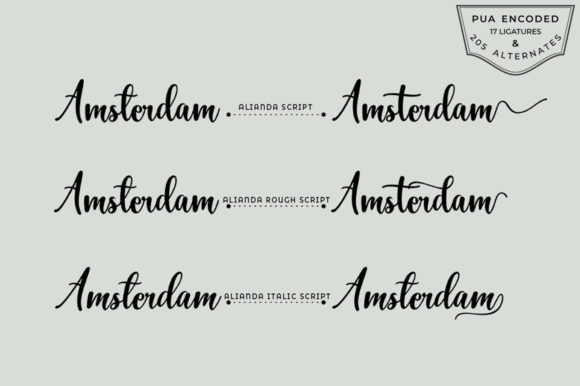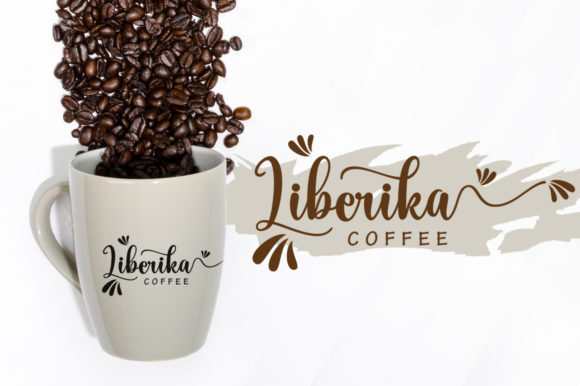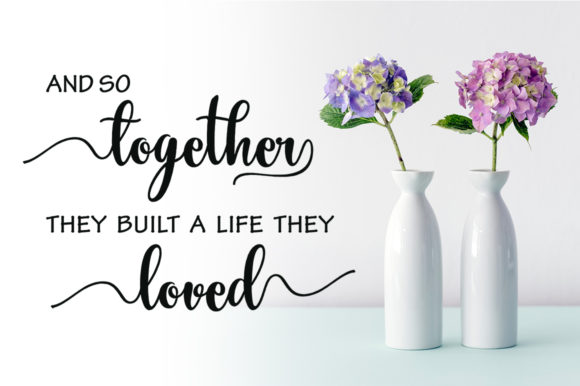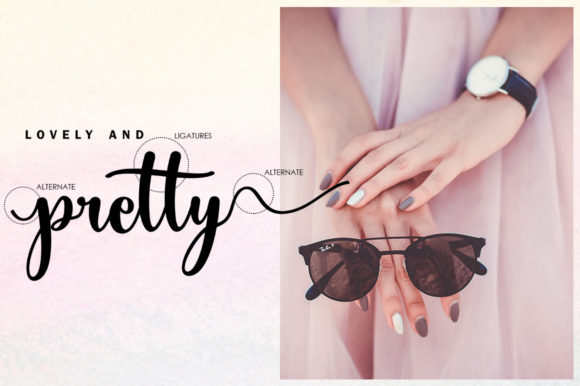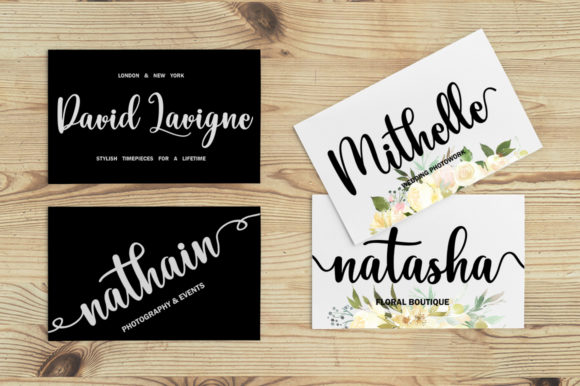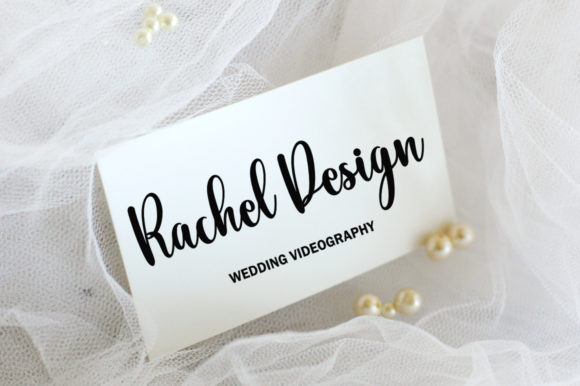
Introducing Alianda Script Font: Elevate Your Designs with Elegant Calligraphy
In the world of typography, a beautiful font can make all the difference in creating stunning designs. If you’re a designer, crafty DIY enthusiast, or simply someone who appreciates the art of beautiful writing, you’re in for a treat. Meet Alianda Script Font, a modern calligraphy font that is sure to capture your heart with its charming flow and whimsical flair.
What Makes Alianda Script Font Special?
Alianda Script is a beautiful and modern calligraphy font that boasts a charming flow, making it perfect for a wide range of design projects. This font is designed to add a touch of elegance and sophistication to your creations, whether you’re working on a wedding invitation, a branding project, or simply a fun DIY craft.
One of the standout features of Alianda Script Font is its extensive collection of swashy, swirly embellishments. These decorative elements allow you to create appealing and quirky typography that is sure to grab attention. With Alianda Script, you can add a dash of personality to your designs and make them truly unique.
Perfect Pairings: Combining Alianda Script with Other Handwritten Fonts
Alianda Script Font looks pleasant when combined with other handwritten fonts, making it incredibly versatile. The font’s elegant flow and charming embellishments complement a wide range of typography styles, allowing you to create stunning contrast and visual interest in your designs.
Whether you’re pairing Alianda Script with a bold, modern sans-serif or a whimsical, cursive script, the result is sure to be breathtaking. The key to creating beautiful font combinations is to experiment and have fun. With Alianda Script Font, you can try out different pairings and find the perfect match for your design.
Endless Design Possibilities with Alianda Script Font
With Alianda Script Font, the design possibilities are endless. This beautiful calligraphy font is perfect for:
- DIY crafts and scrapbooking
- Signage and display design
- Social media graphics and digital art
Whether you’re a professional designer or a crafty DIY enthusiast, Alianda Script Font is sure to become a favorite in your collection. The font’s versatility, charm, and elegance make it the perfect choice for a wide range of design projects.
Tips and Tricks for Getting the Most Out of Alianda Script Font
To get the most out of Alianda Script Font, here are a few tips and tricks to keep in mind:
- Experiment with different font sizes and styles to create visual interest
- Use the font’s swashy embellishments to add personality and flair
- Pair Alianda Script with other handwritten fonts for stunning contrast
- Don’t be afraid to get creative and try out new and unusual design combinations
By following these tips and tricks, you can unlock the full potential of Alianda Script Font and create stunning designs that showcase your unique style and creativity.
In conclusion, Alianda Script Font is a beautiful and modern calligraphy font that is sure to elevate your designs with its elegant flow and charming embellishments. With its extensive collection of swashy, swirly embellishments and versatile pairing options, this font is perfect for designers, crafty DIY enthusiasts, and anyone who appreciates the art of beautiful writing.
So why wait? Discover the beauty of Alianda Script Font and take your designs to the next level. Whether you’re working on a wedding invitation, a branding project, or simply a fun DIY craft, this stunning calligraphy font is sure to make your creations shine.